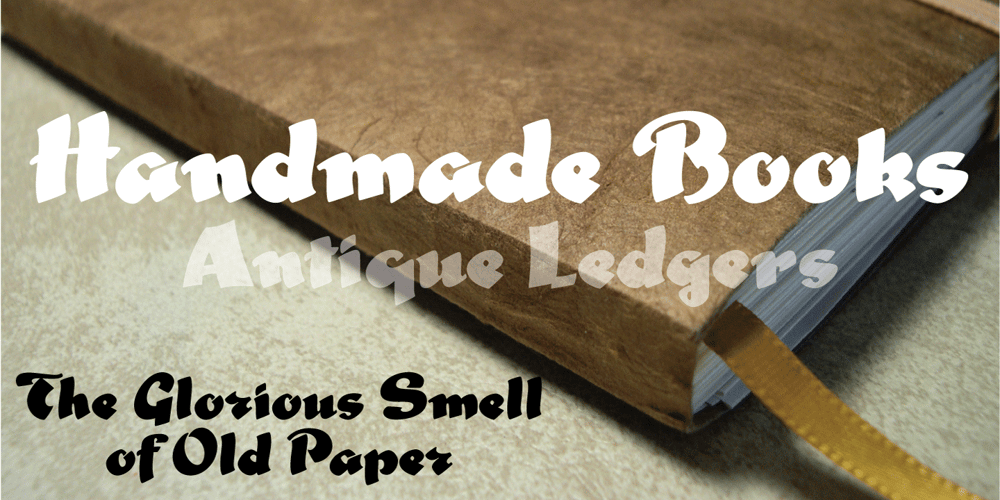
India Ink Font Family was designed by Jason Anthony Walcott and published by CounterPoint Type Studio. India Ink contains 1 styles and family package options. A heavy, bold font based on two hand lettered type specimens from the 1920s. Original designer unknown. The font has a unique combination of both Old World and Asian influences, while still maintaining a fun, upbeat casual feel. Contains a full set of Alternate Caps found under the “Stylistic Alternates” OpenType feature. Contains language support for both Latin-based and most Eastern European languages.